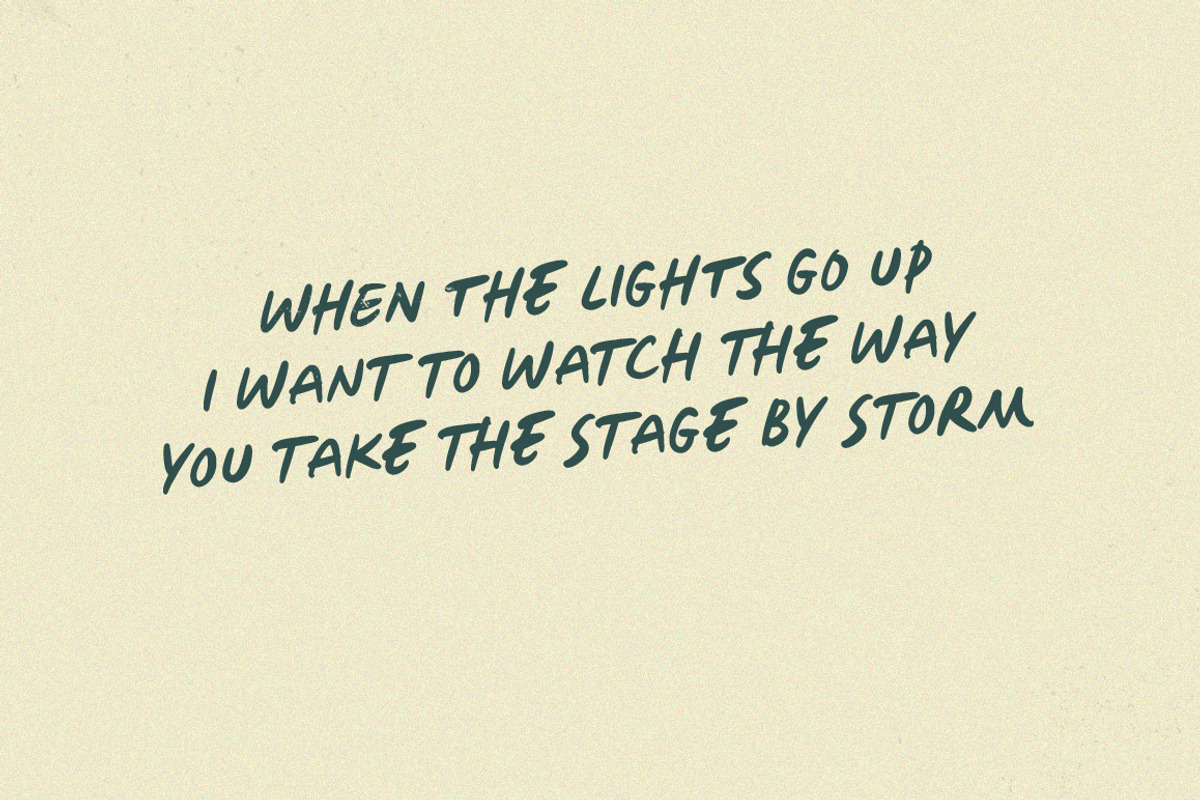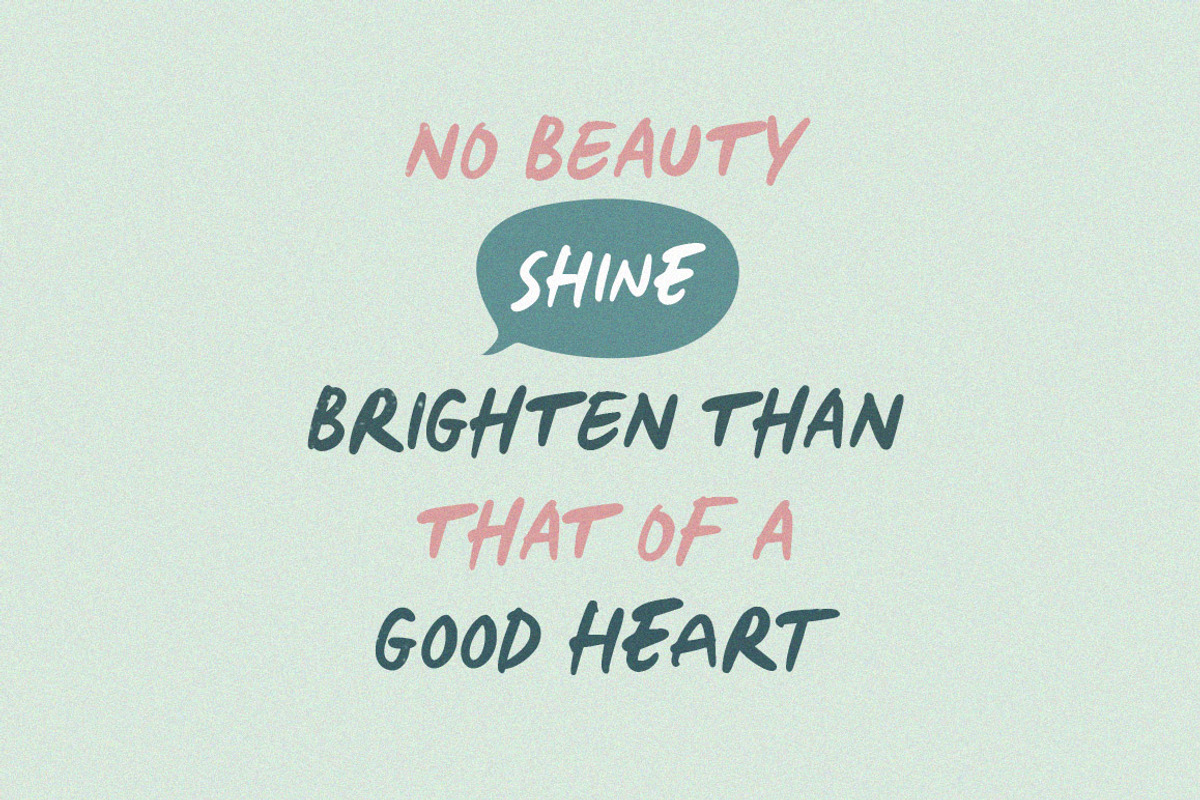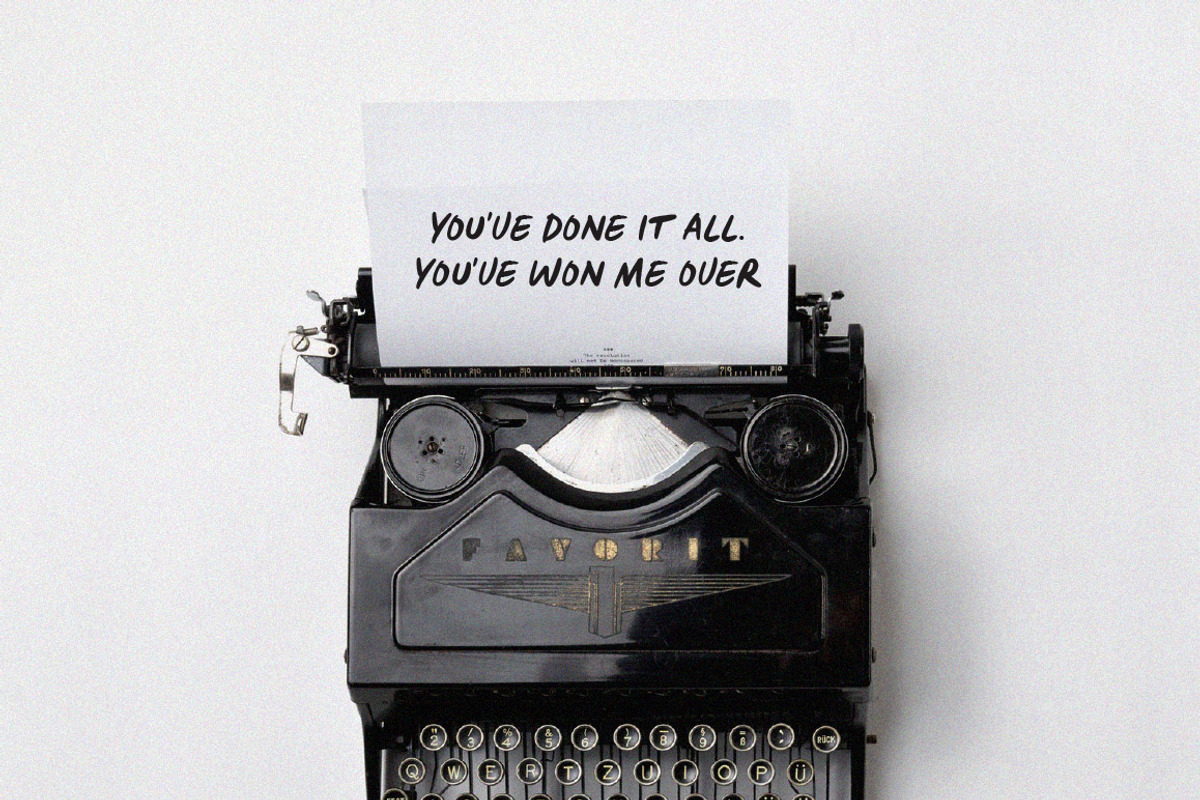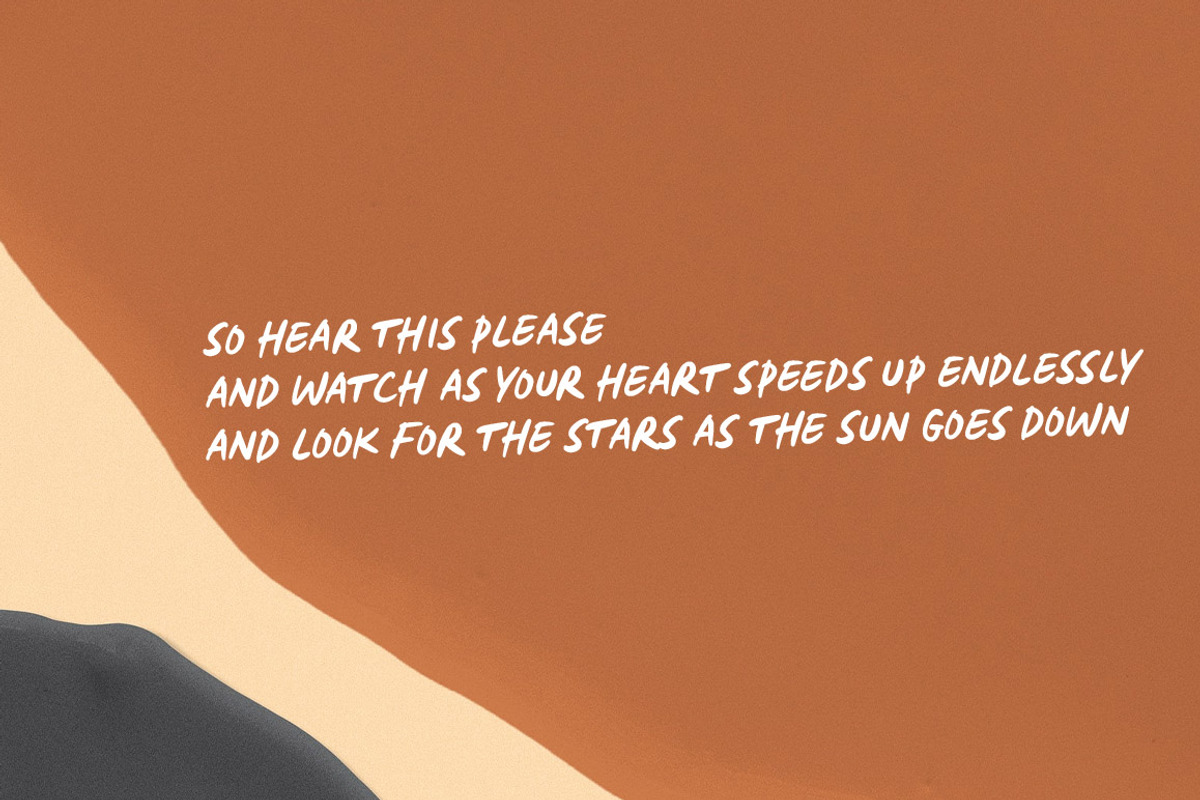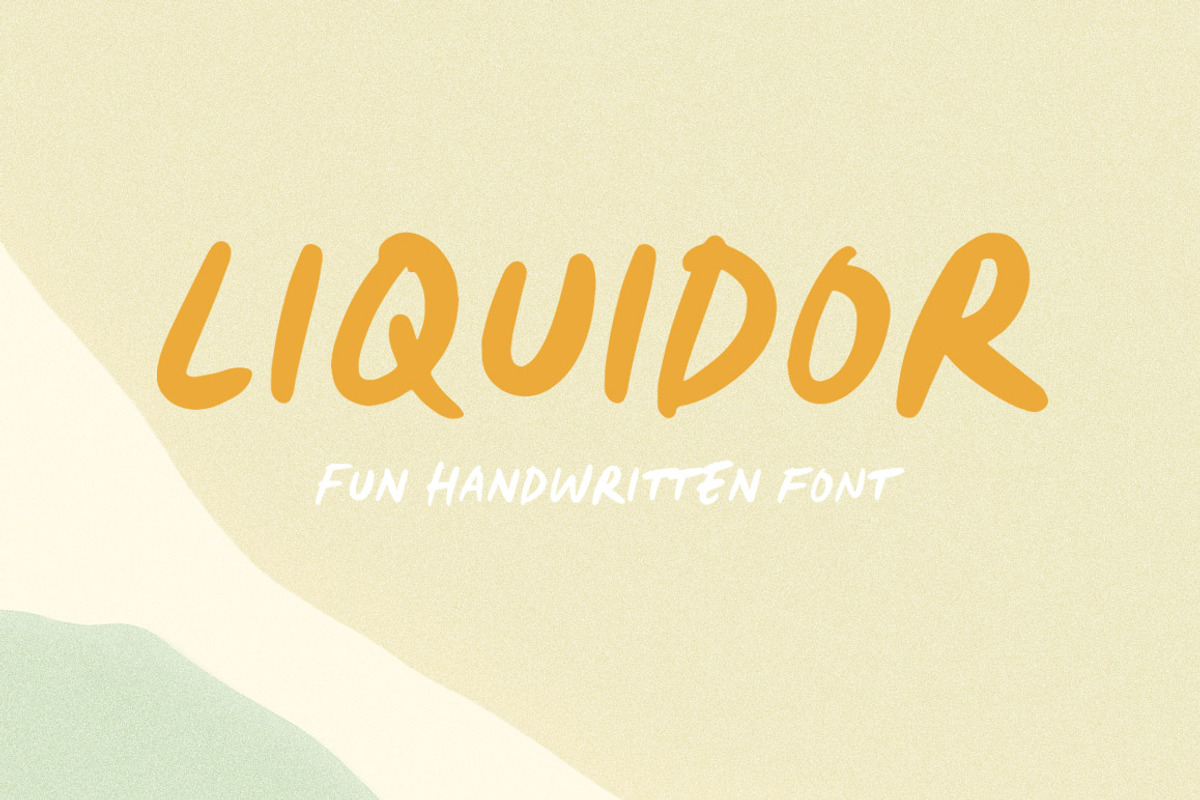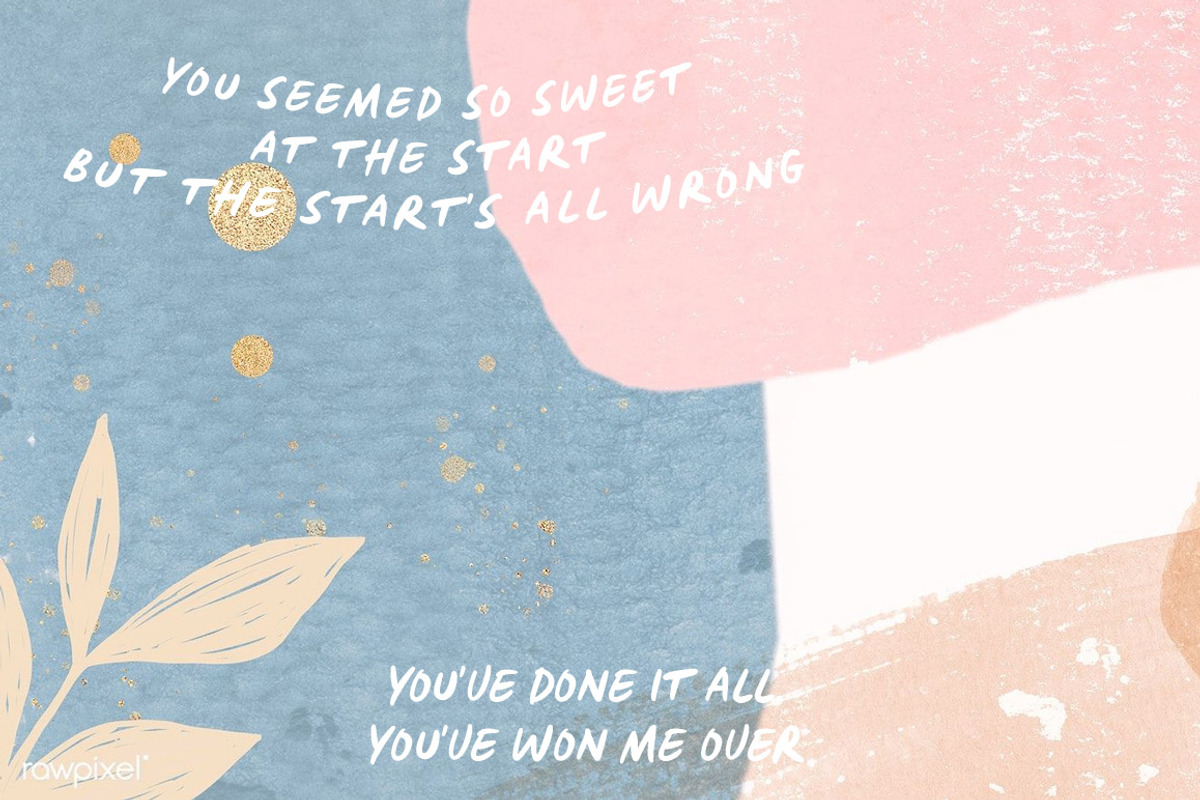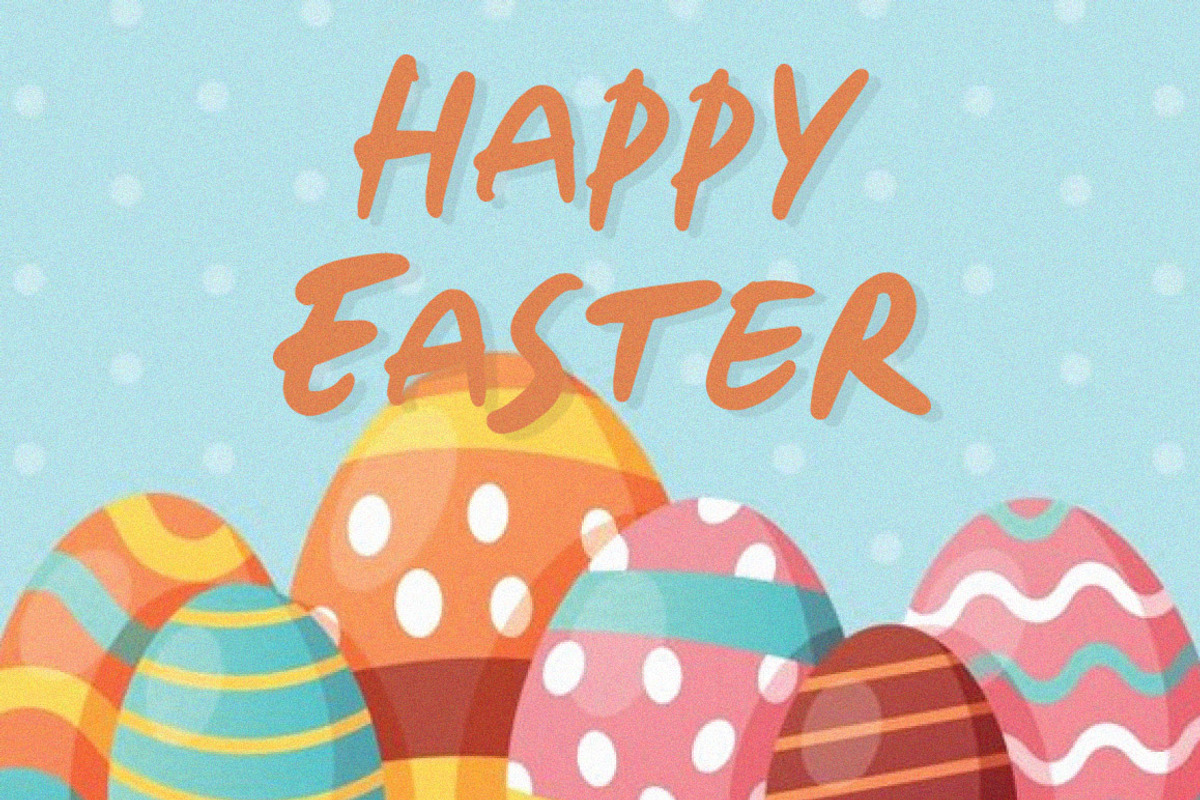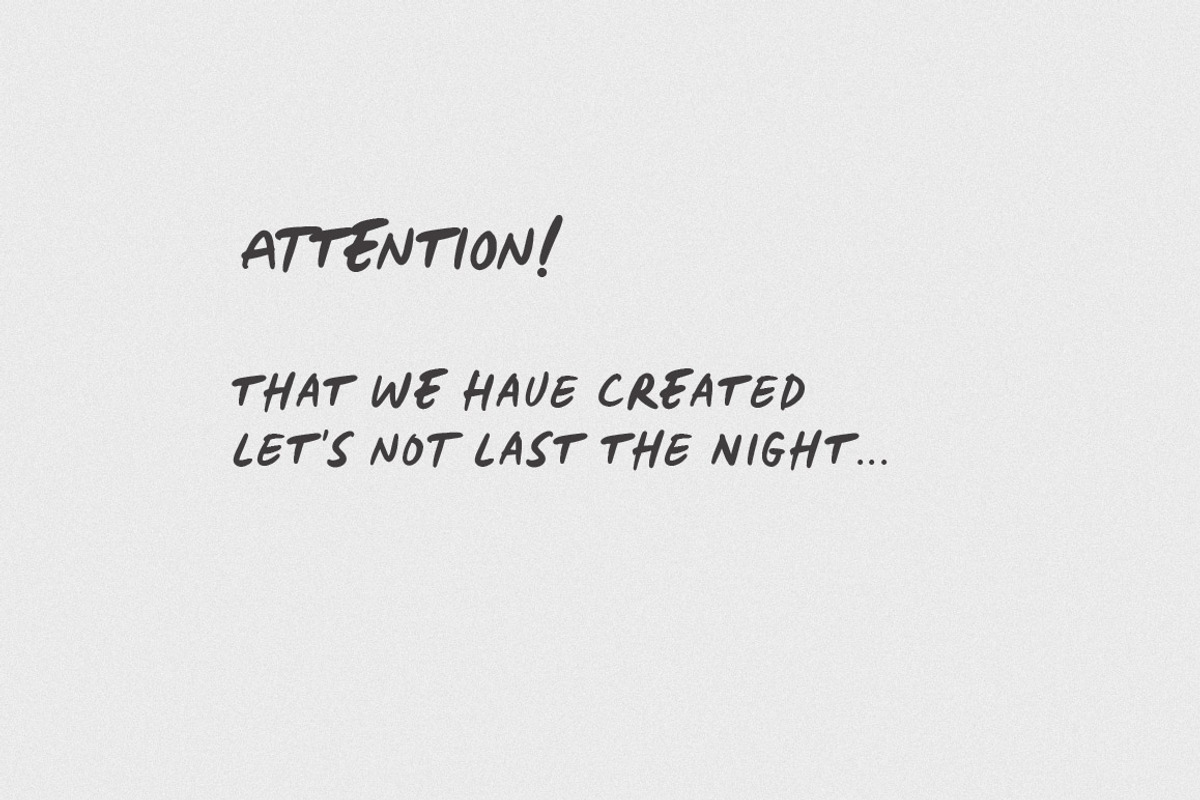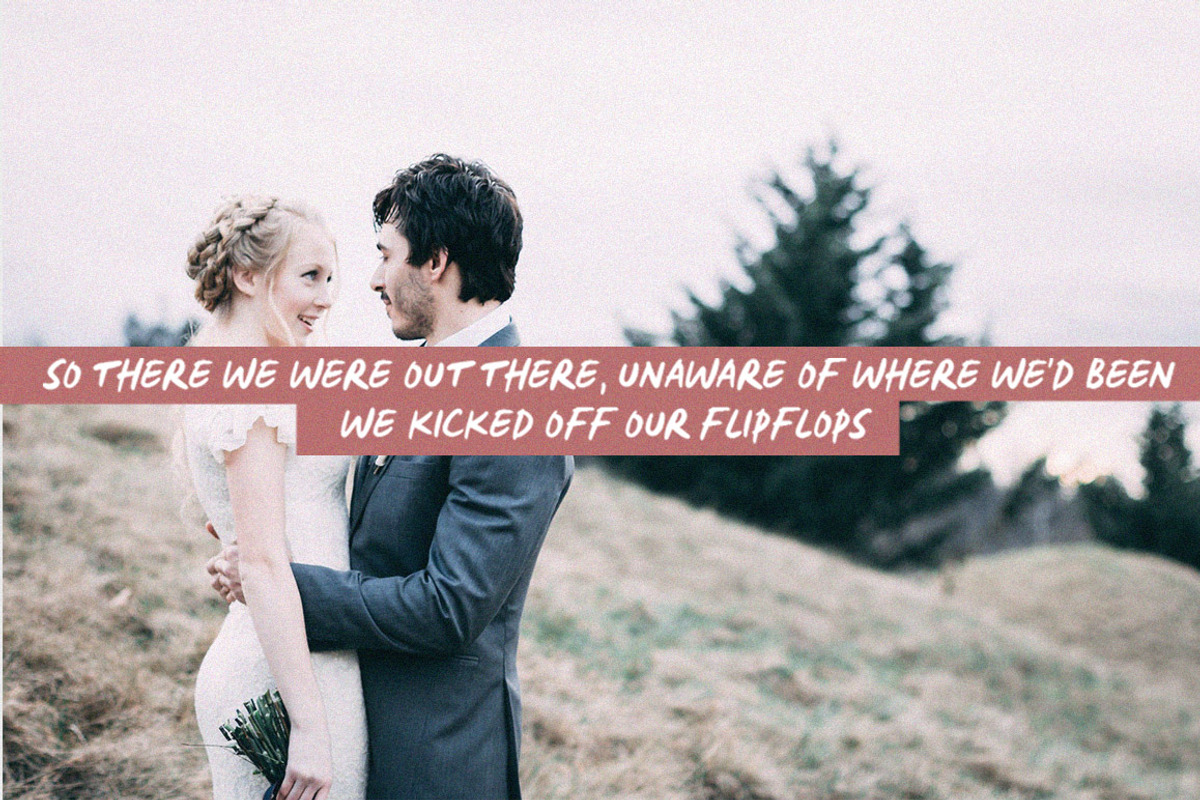
Liquidor
Liquidor is a thick and soft hand typeface, with a cute and playful touch, and irregular. The font style can fit a wide variety of themes, with all caps characters, making this font suitable for your big projects.
This font is suitable for all design themes such as summer, sunny, minimalism, holiday, feminine, packages, advertisements, quotes, etc.